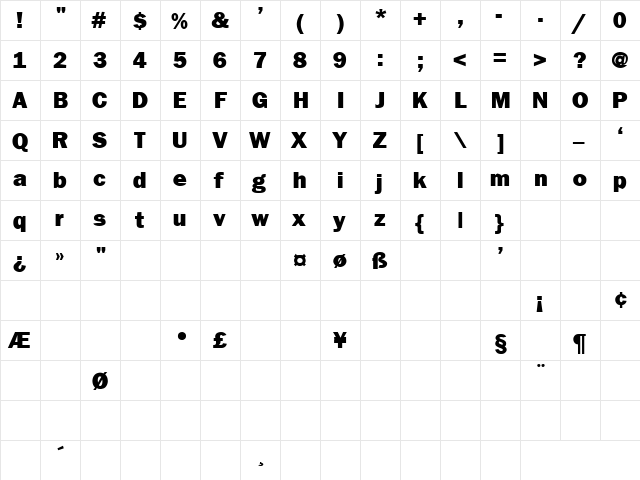
Moby Dick 1 Regular
Design Context for Moby Dick 1 Typeface
Moby Dick 1 takes a measured approach to typography — its balanced proportions and neutral character make it a reliable workhorse for both digital and print work.
Pro Tip: Use Moby Dick 1 in both headline and body roles to test its range before committing to a single application.